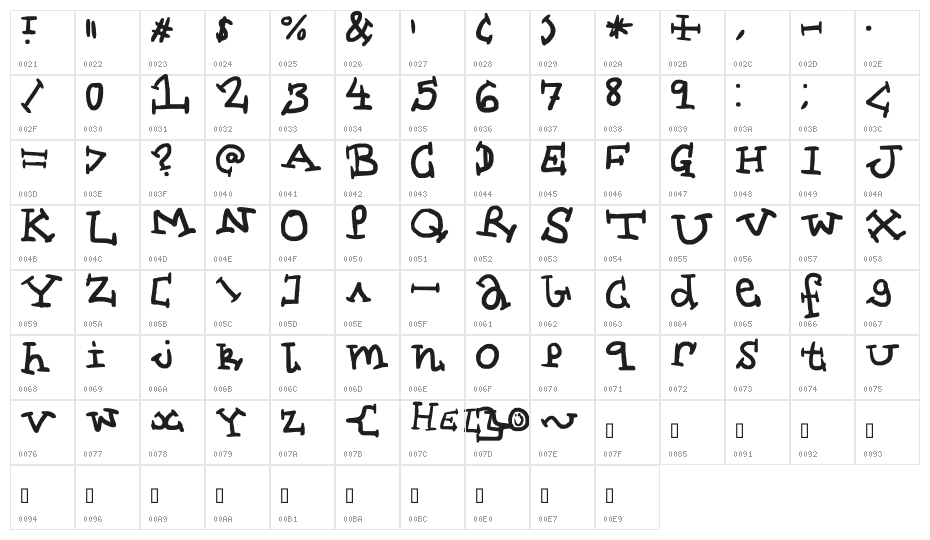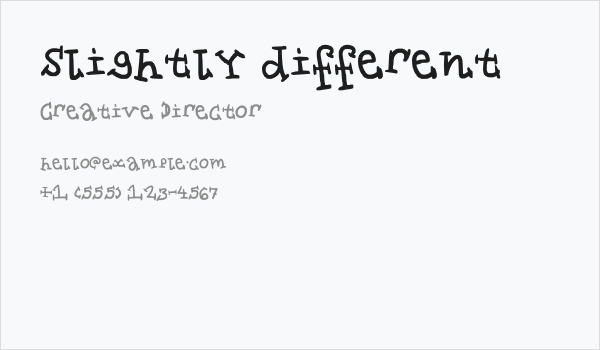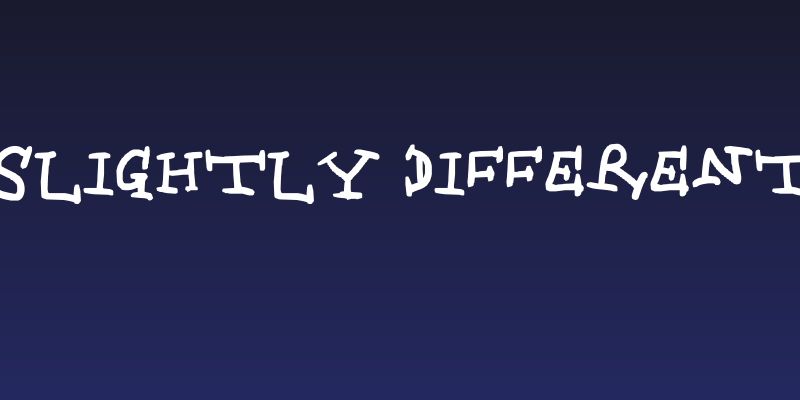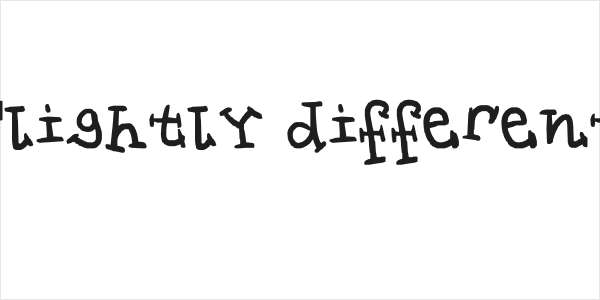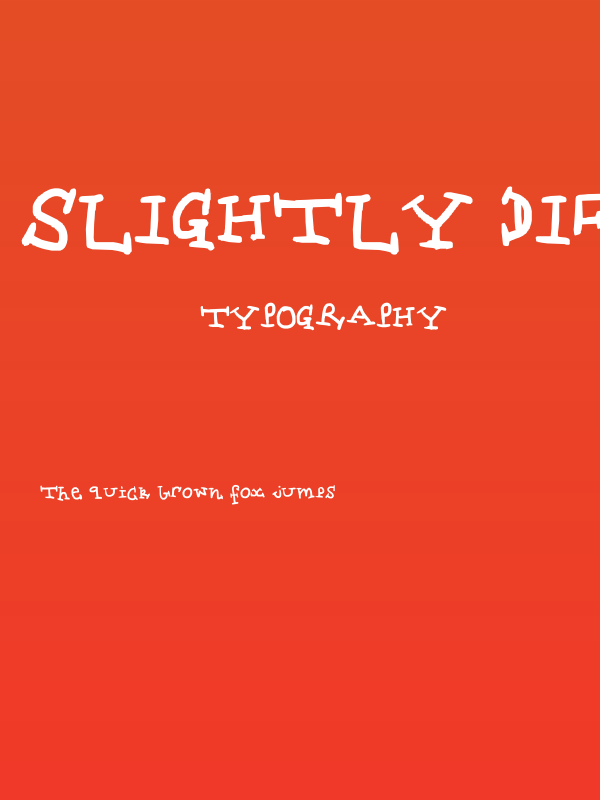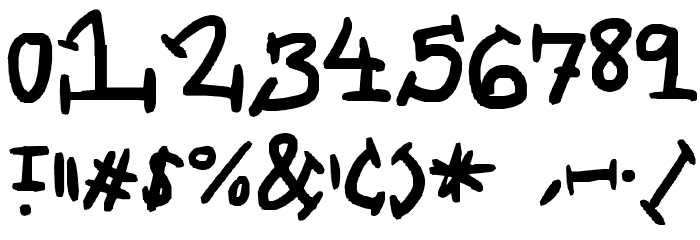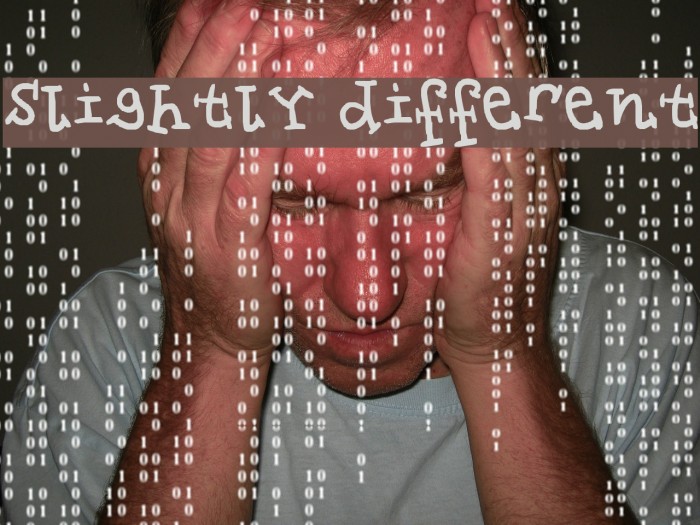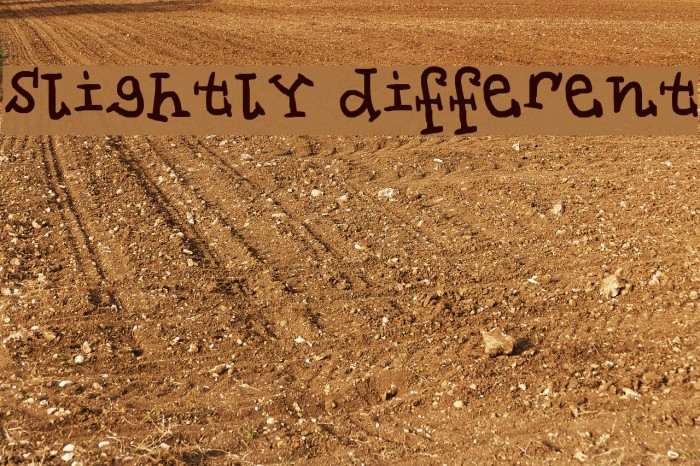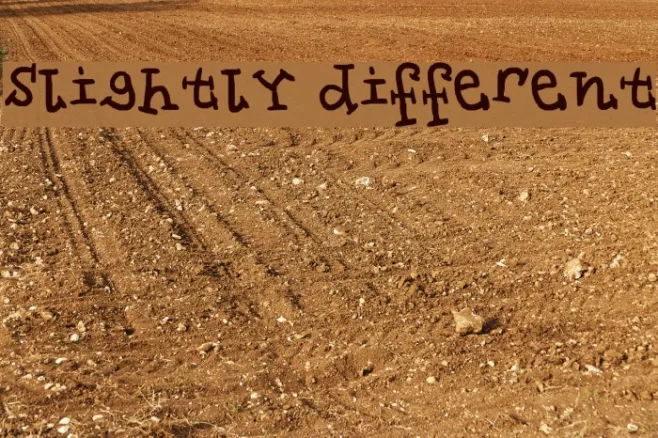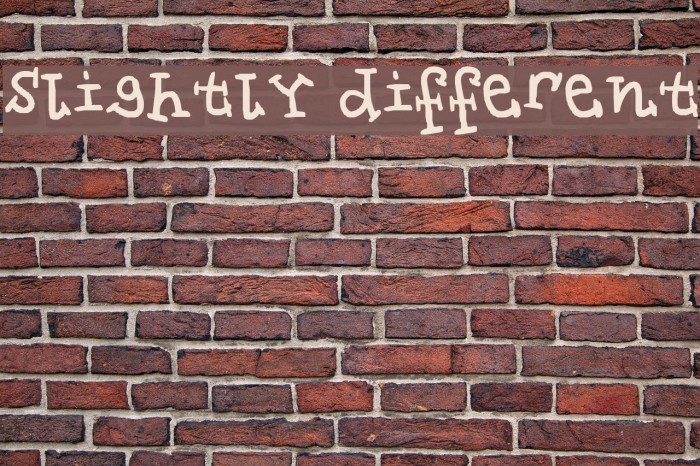
slightly different Font
slightly different Description
This font exhibits a playful and whimsical style, characterized by its irregular and slightly distorted letterforms. Each character appears hand-drawn, with varying stroke thicknesses and quirky angles, giving it a lively and informal appearance. The uppercase and lowercase letters maintain a consistent style, with exaggerated curves and loops that add to its charm. Numbers and special characters follow the same playful design, making the font suitable for creative and artistic projects. The overall effect is both unique and eye-catching, perfect for capturing attention in a fun and engaging way.
SLIGHTLY-DIFFERENT UPPERCASE
SLIGHTLY-DIFFERENT LOWERCASE
SLIGHTLY-DIFFERENT OTHER CHARS
| Overall Style | Whimsical, Playful |